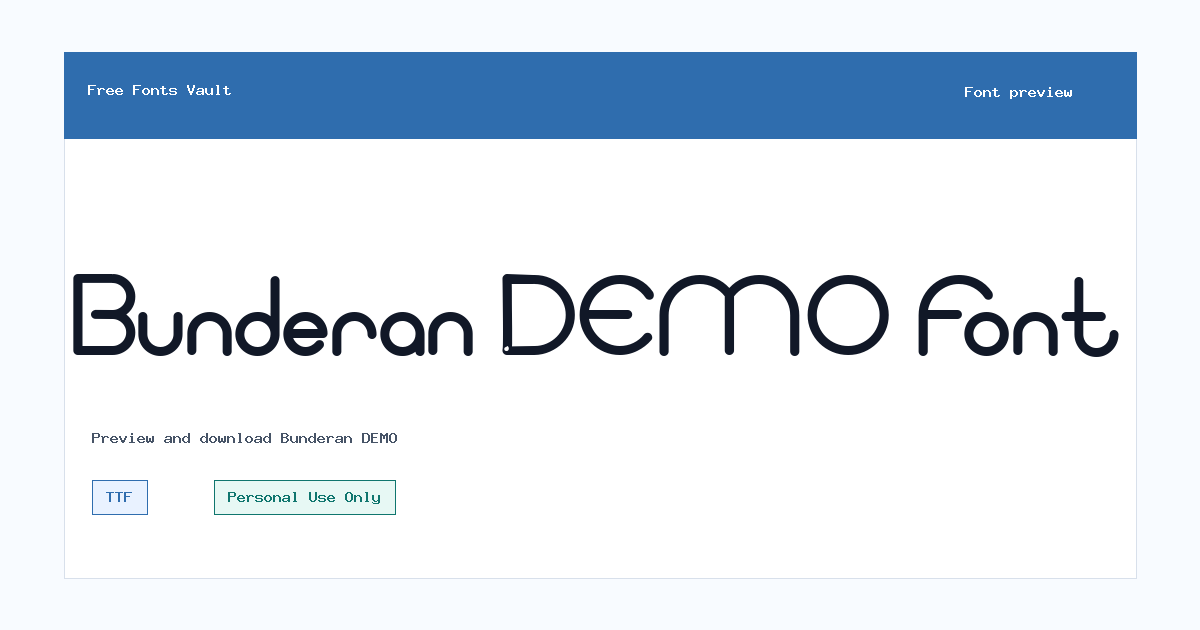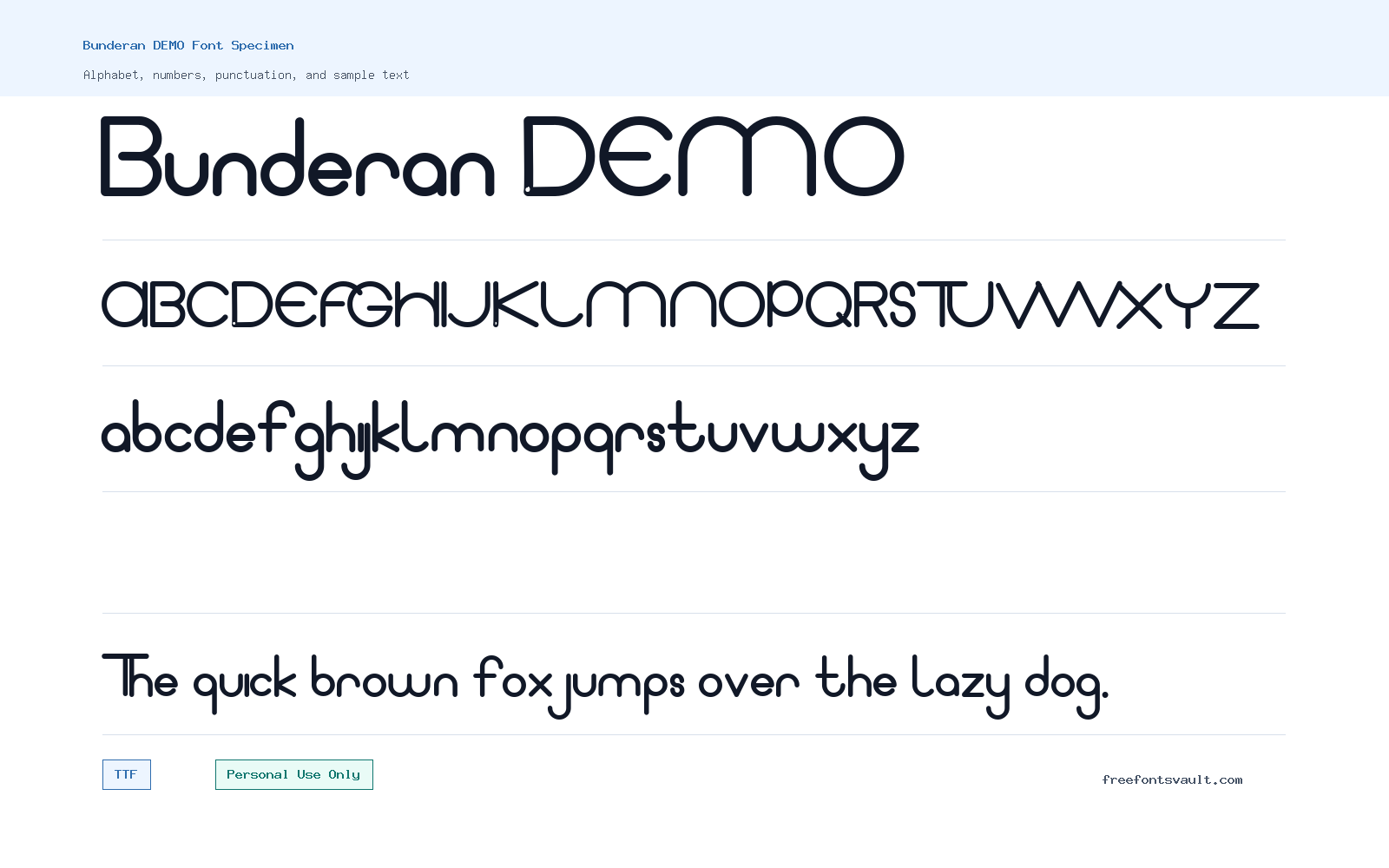
Bunderan DEMO
Bunderan DEMO is a bold sans serif font with a clean, confident look for short display text. It is best treated as a personal-use font, so review the license before using it in client, business, or paid work.
About Bunderan DEMO
Bunderan DEMO comes as a TTF font file with a bold weight, making it more suitable for headings than long paragraphs. Its simple sans serif structure gives it a direct, modern feel without needing extra decoration. Use the preview tool to test your own words before downloading, especially if you plan to use names, titles, or short phrases where spacing and letter shapes matter most.
Because the available style is bold, Bunderan DEMO works best when the text is short and the layout gives it enough room. Try it for poster titles, social graphics, YouTube thumbnails, personal branding drafts, quote images, mockups, and display headers. For body copy, menus, captions, or dense blocks of text, pair it with a lighter neutral sans serif or a readable serif so the page does not feel too heavy. If you use it in a logo concept or brand mockup, keep the Personal Use Only license in mind and confirm permissions before release or selling anything.
- Bold sans serif style suited to display text, headlines, and short visual phrases.
- Personal posters, social media graphics, thumbnails, and title treatments.
- Mockups, draft branding ideas, and short headings where a bold sans serif is needed.
Bunderan DEMO is credited to Say Studio as the designer and foundry.
What kind of font is Bunderan DEMO?
Bunderan DEMO is listed as a sans serif font in a bold TTF style. It is a better fit for display use than for long reading.
Who designed Bunderan DEMO?
The font is credited to Say Studio.